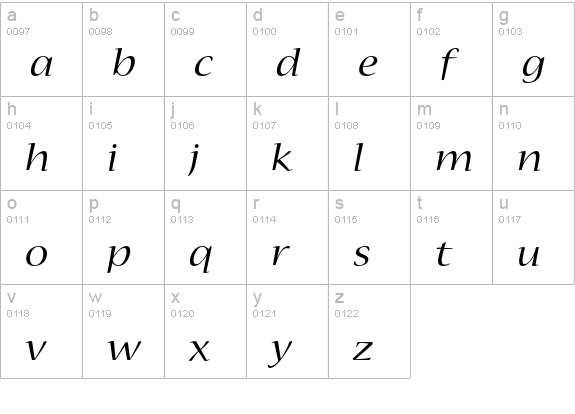
Nueva Std Extended Italic Font Details
Nueva Std Extended Italic is a distinctive, extended-width, italic variant in the Nueva typeface family \xE2\x80\x94 well suited to design and typography projects.
Nueva Std Extended Italic font exudes elegance and sophistication with its sleek and modern design. The italic style adds a touch of flair and creativity to any project, making it perfect for headings, titles, and other design elements that require a touch of sophistication. The extended character set ensures versatility and allows for a wide range of design possibilities. And the best part? This stunning font is available for free download at FontsMarket.com. So you can elevate your designs without breaking the bank. Don't miss out on the opportunity to add Nueva Std Extended Italic to your font collection and take your designs to the next level.